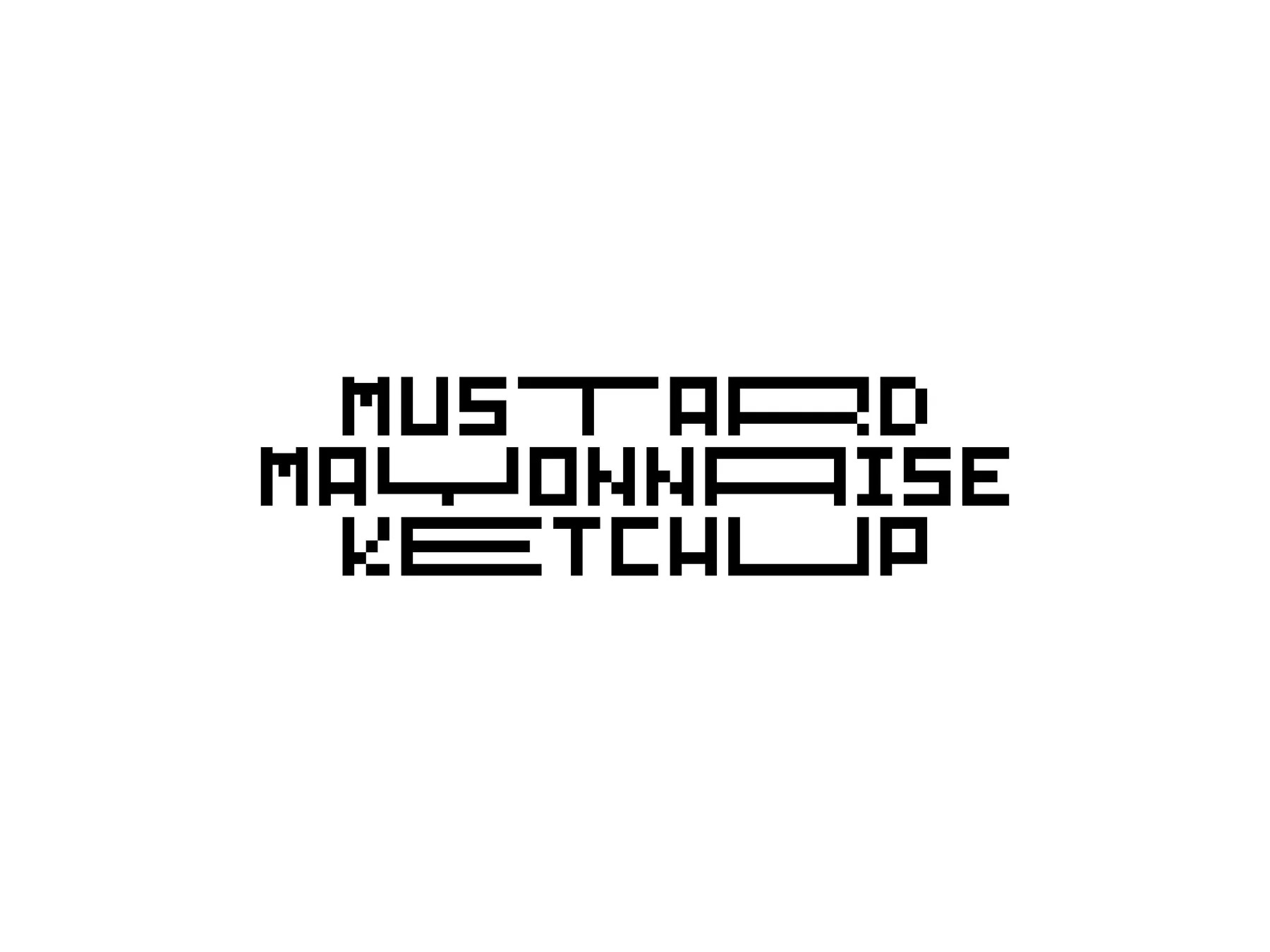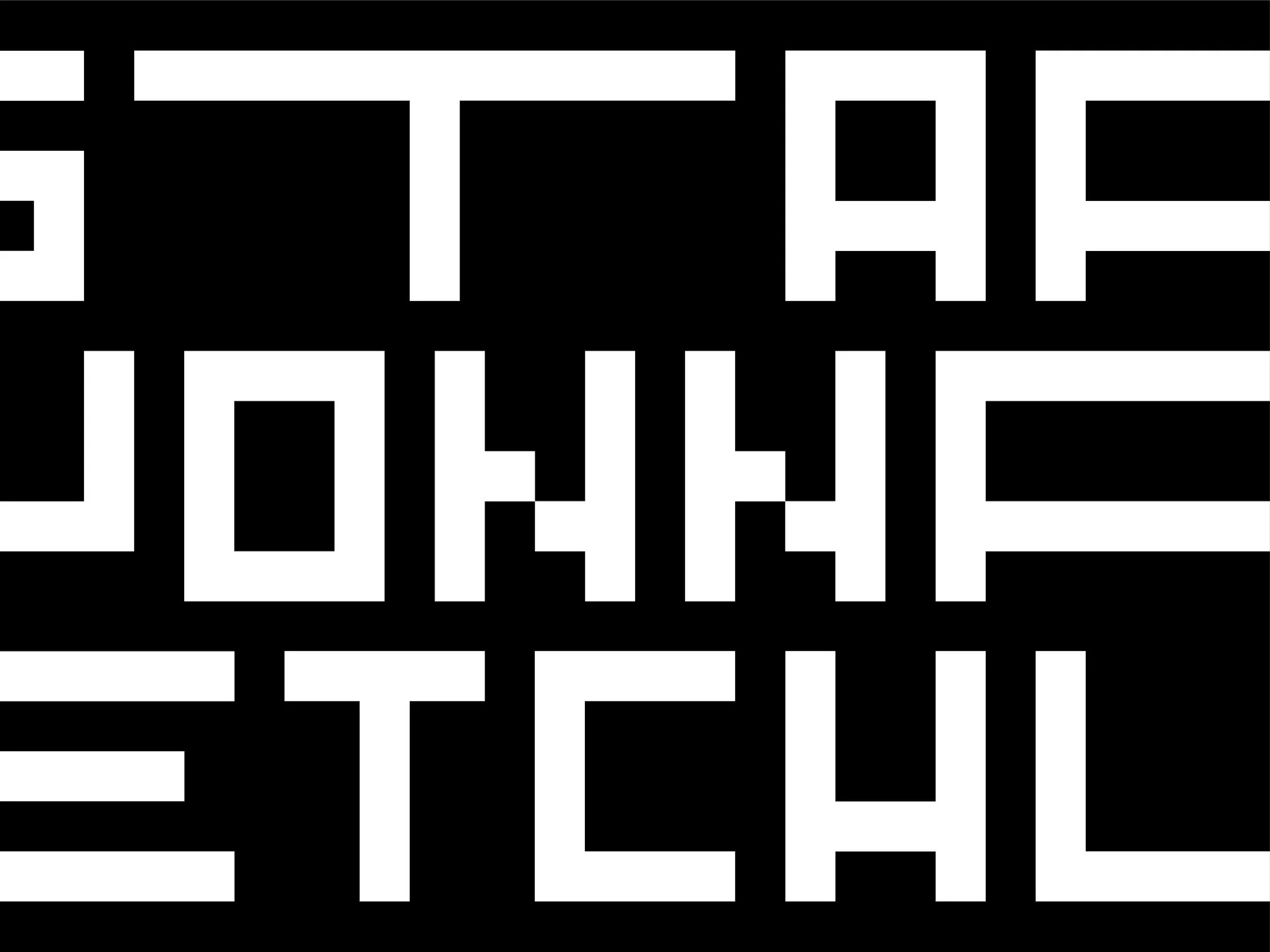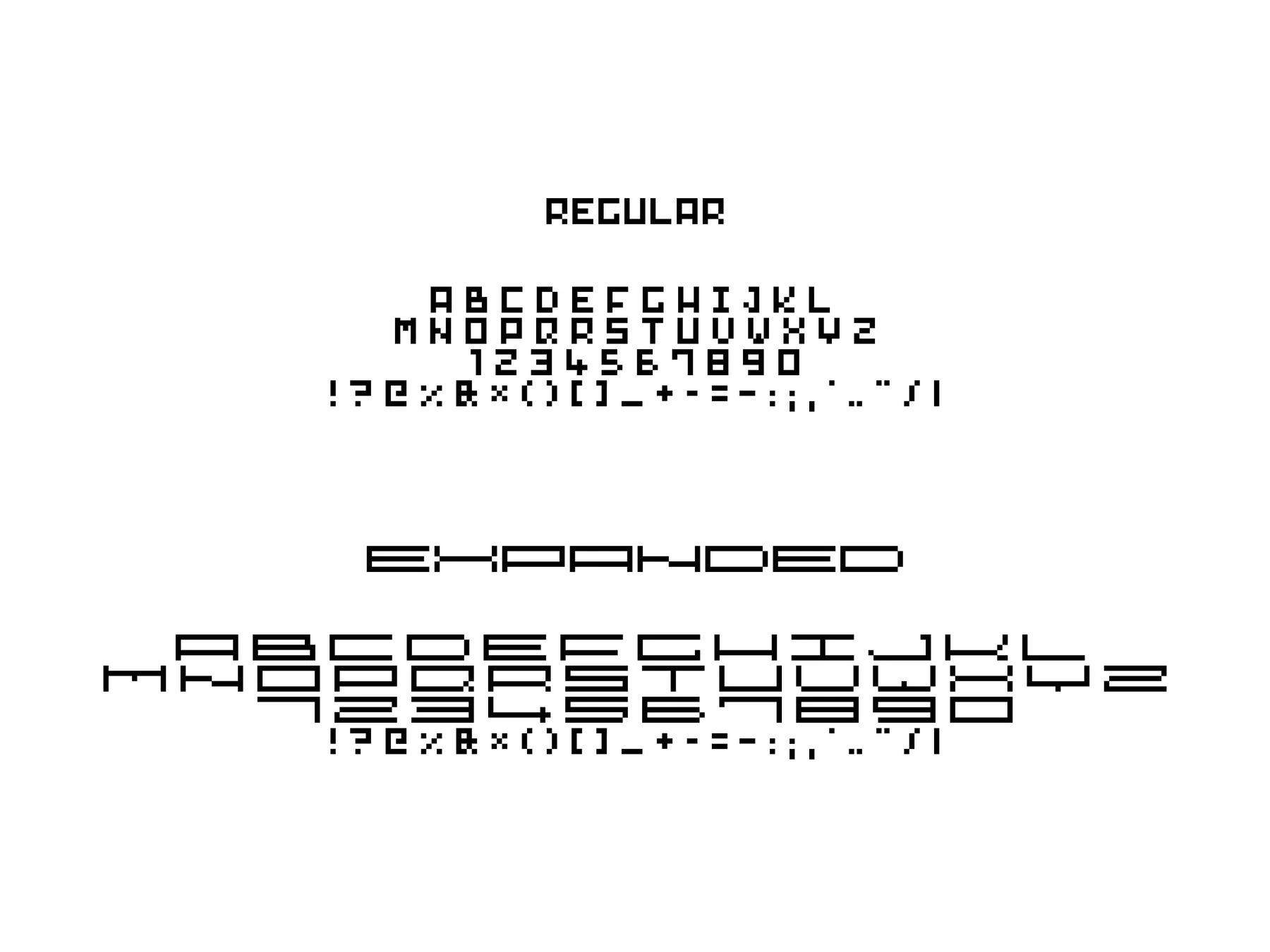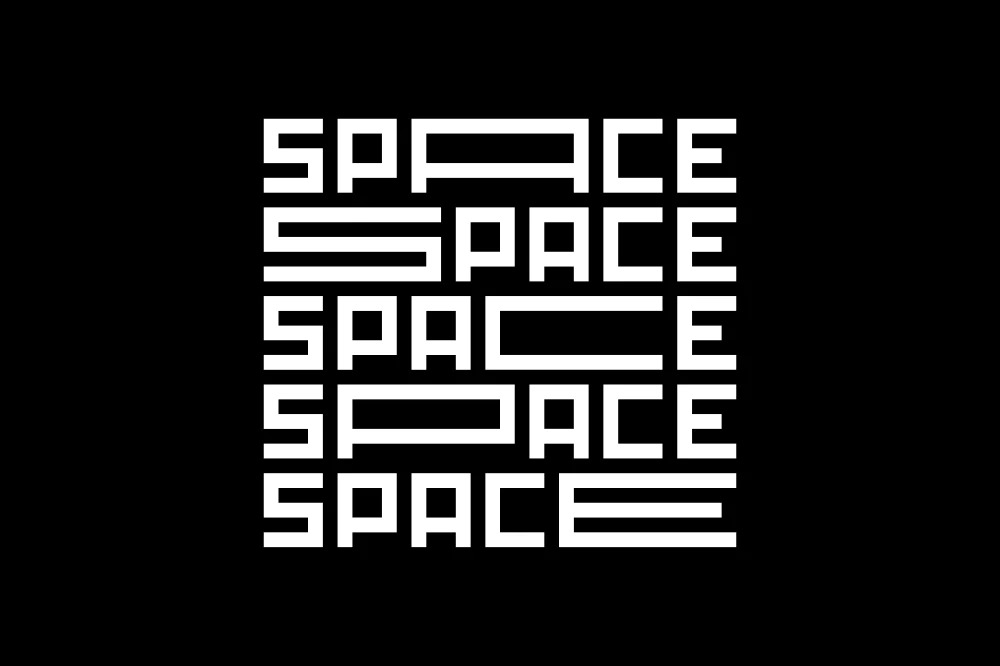
SpaceType Display Font is a monospaced font family in regular and expanded styles. They have created a typeface that warps as space itself. It comes in two versions – regular and expanded. You can combine both a create some unique typography styles. Find their website here